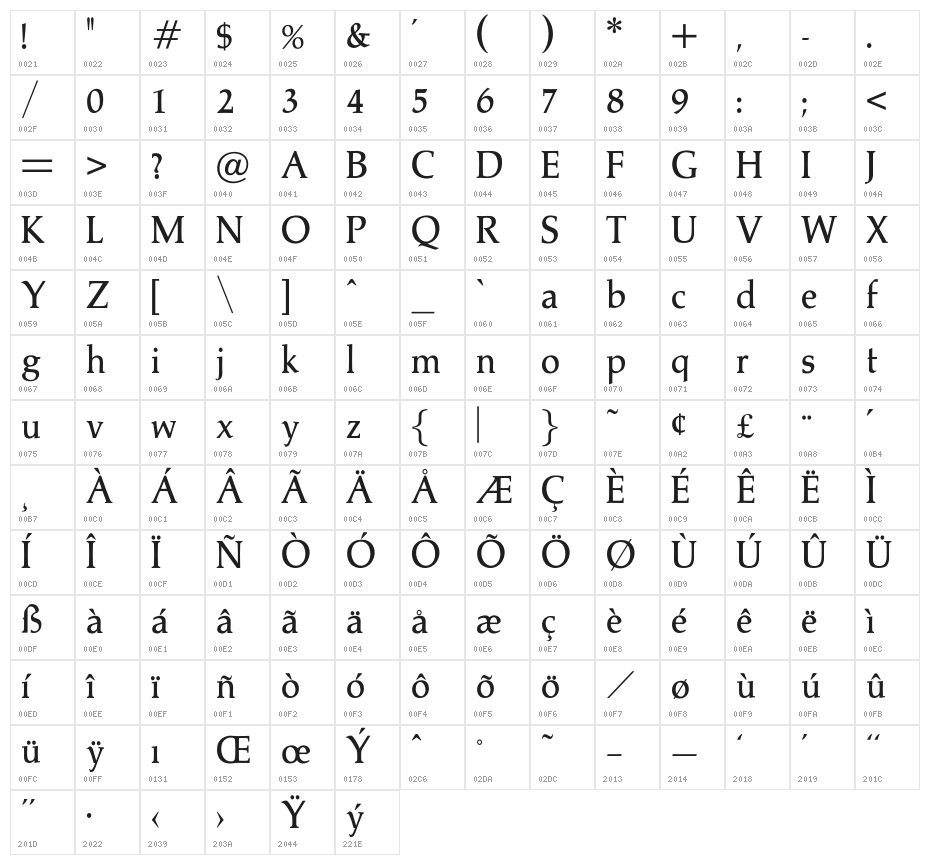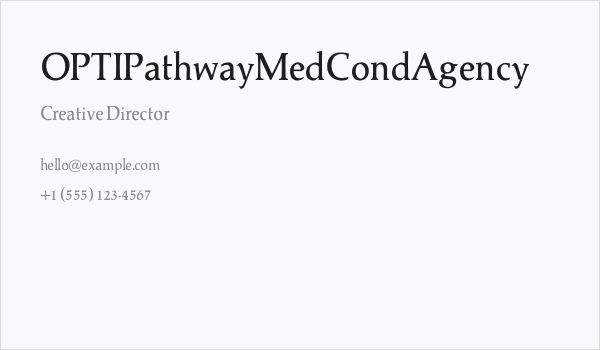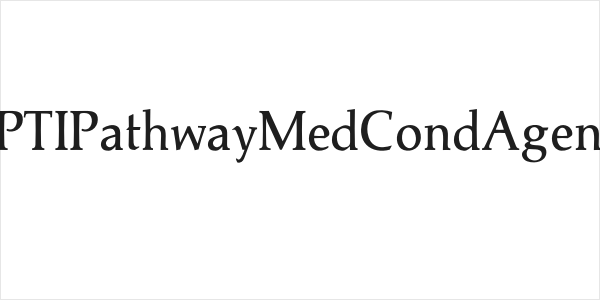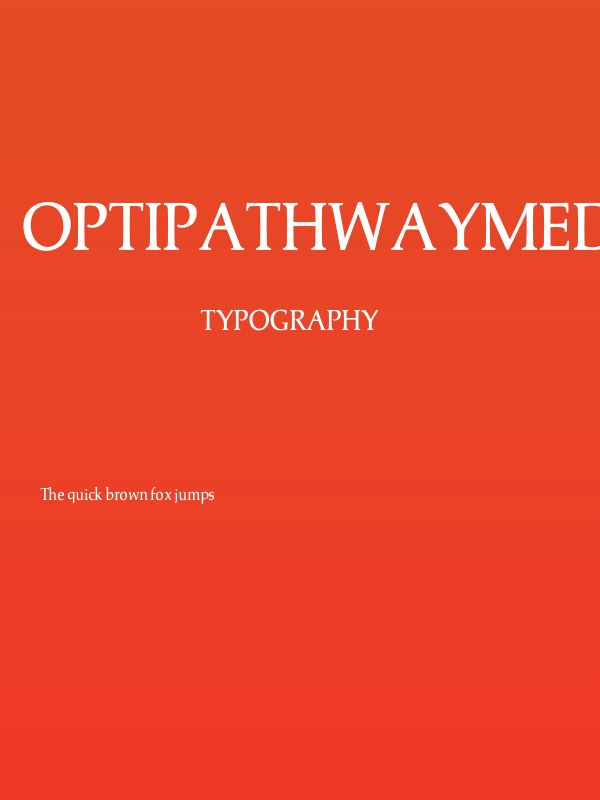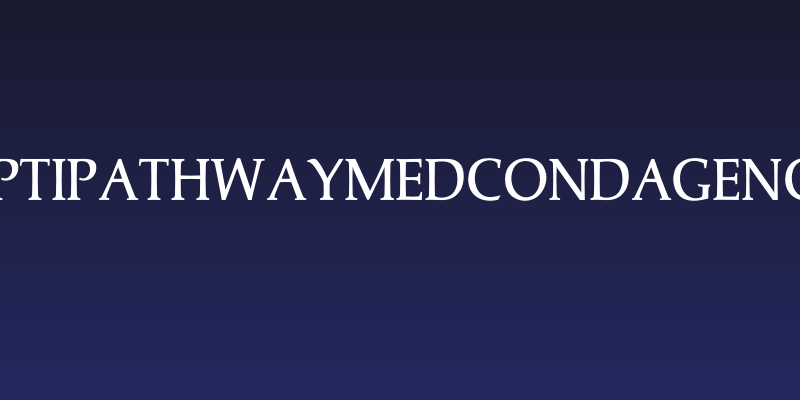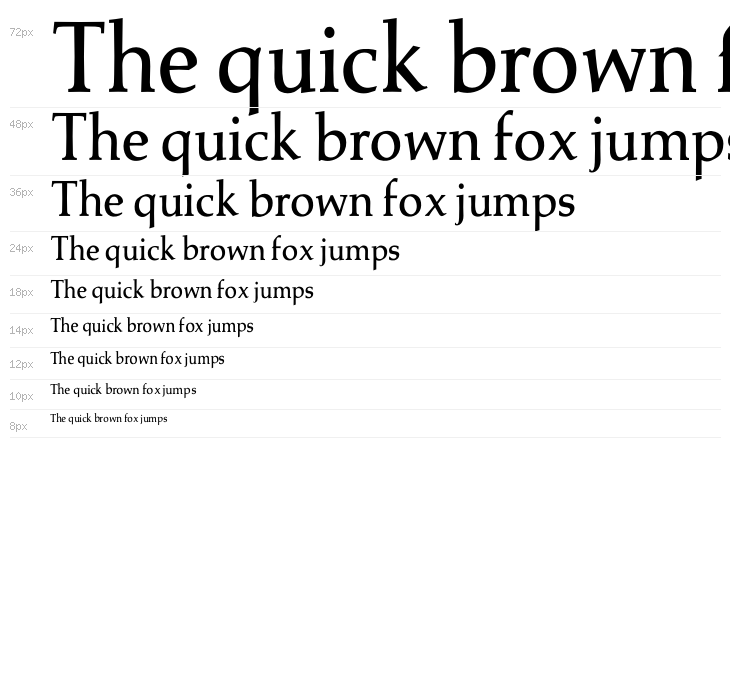
OPTIPathwayMedCondAgency Font
OPTIPathwayMedCondAgency Description
This font exhibits a classic serif style with elegant and refined strokes. The uppercase letters are bold and commanding, while the lowercase letters maintain a balanced and readable form. The numerals are clear and distinct, making them suitable for both display and text settings. Special characters are well-designed, maintaining the overall aesthetic of the font. The serifs are pronounced, adding a touch of sophistication and tradition. This font is versatile, suitable for a wide range of applications from formal documents to creative projects.
| Use Case | Body text, Editorial design, Branding |
| Proposed Projects | Ideal for formal documents, book typesetting, branding, and editorial design. |